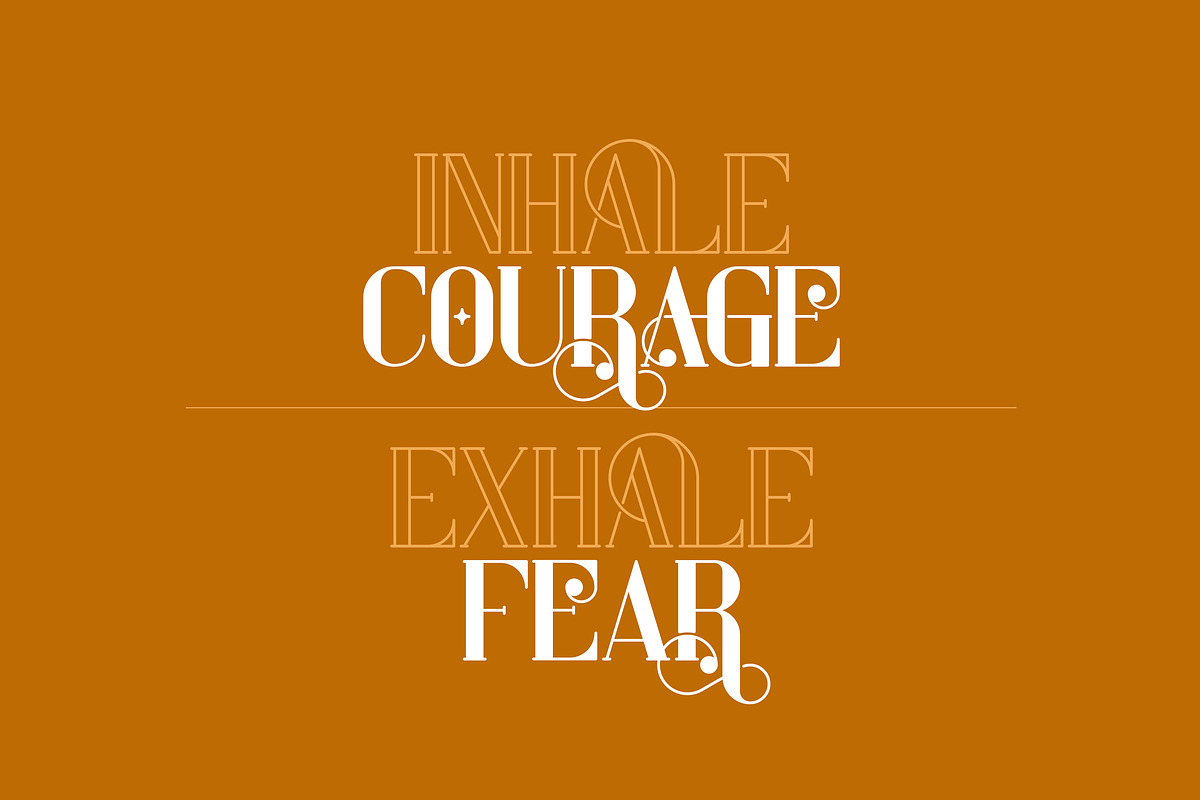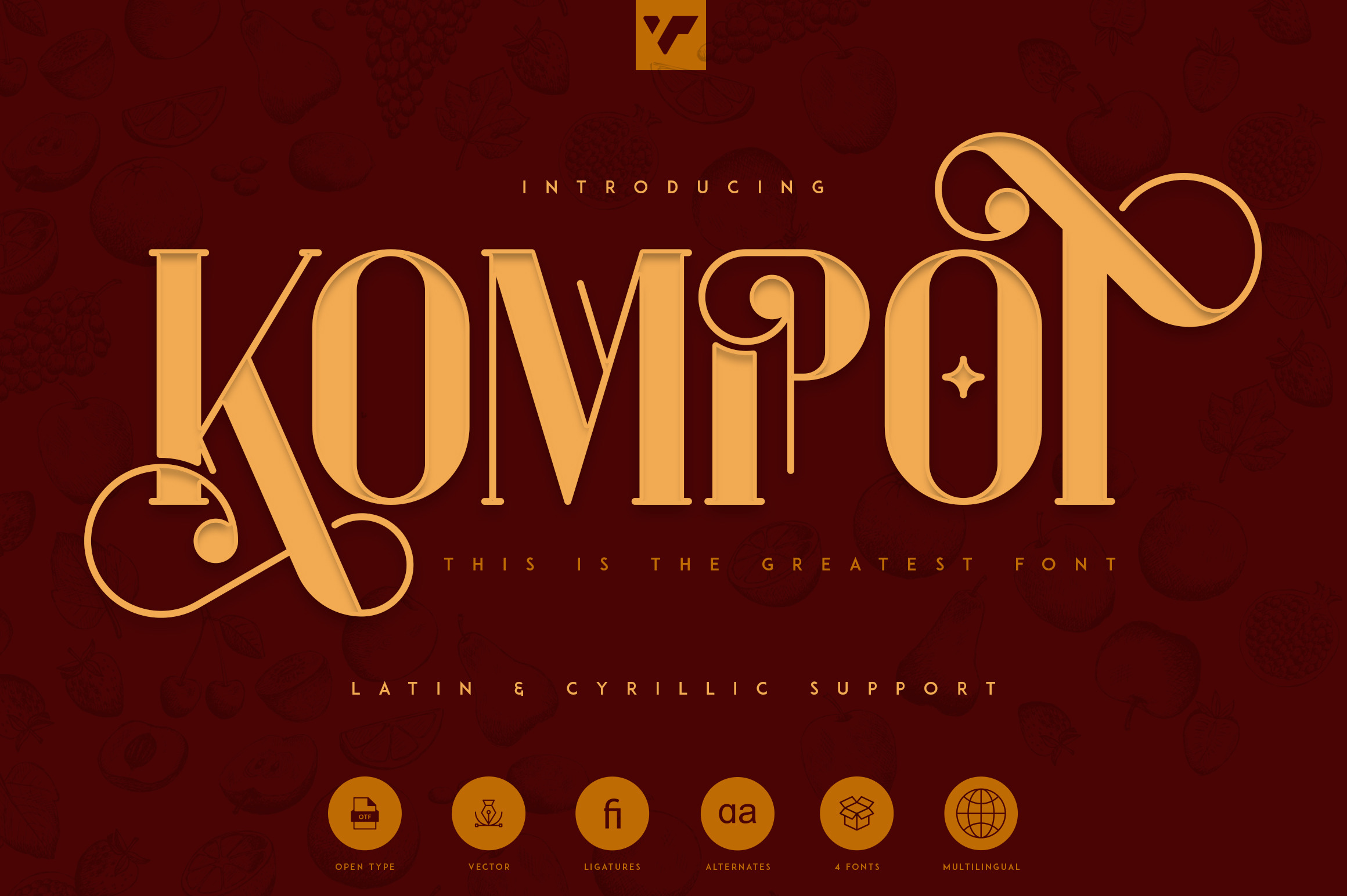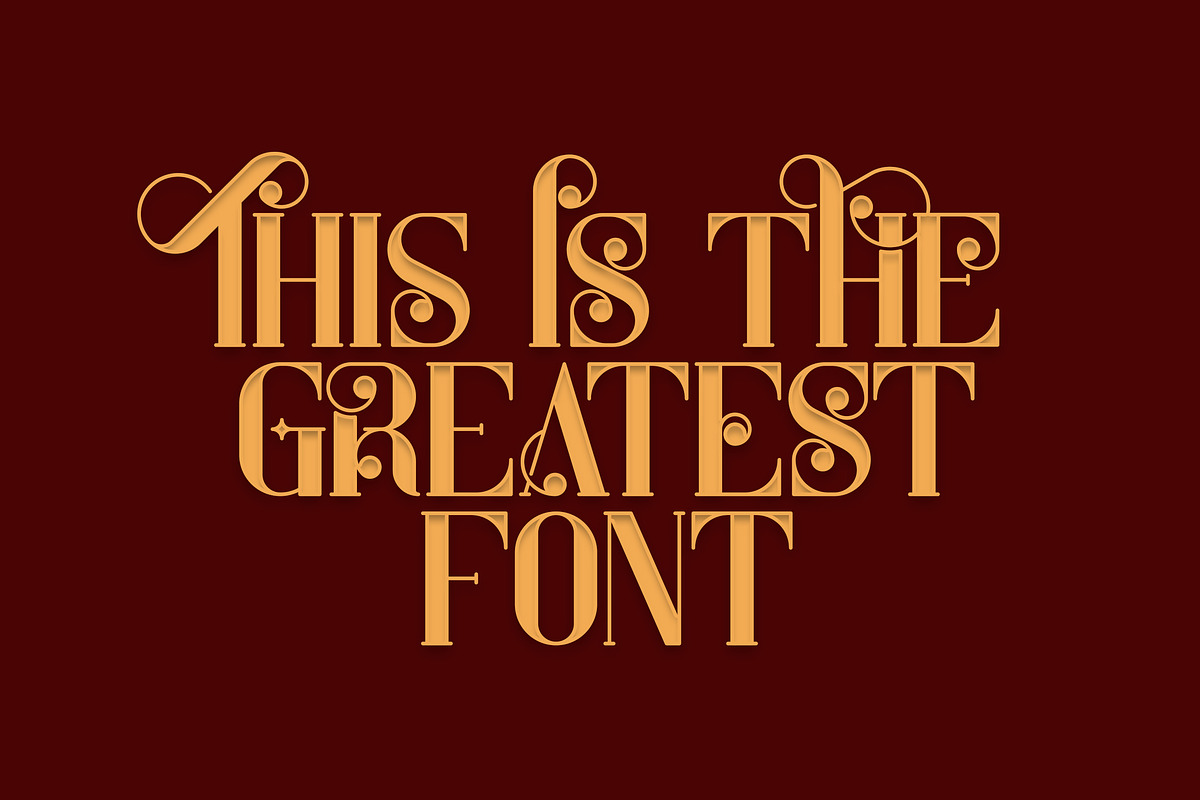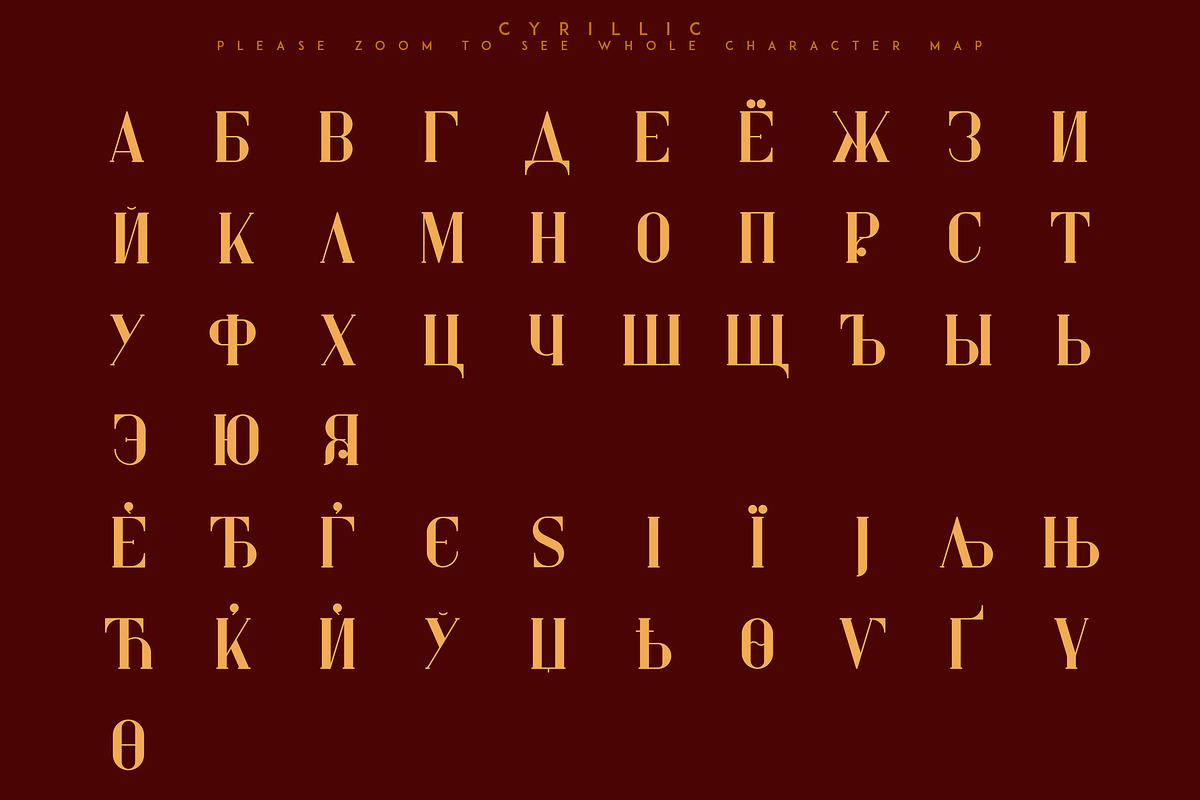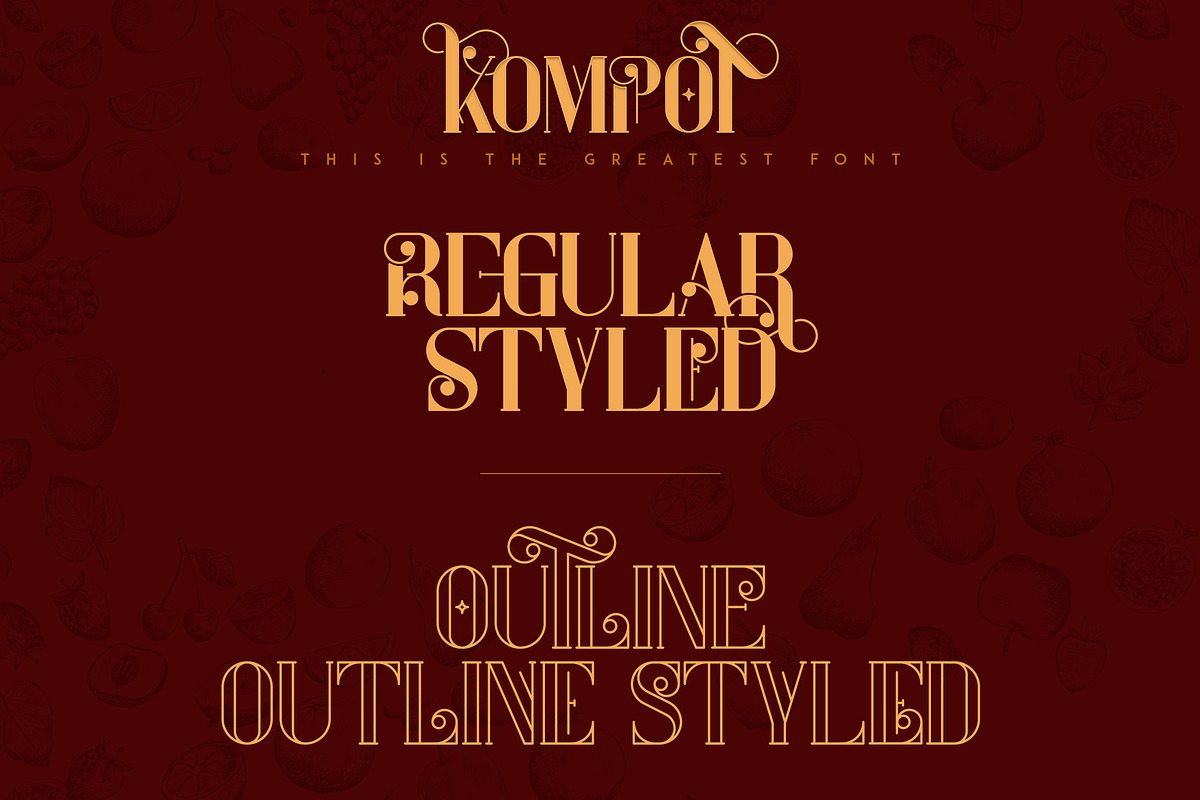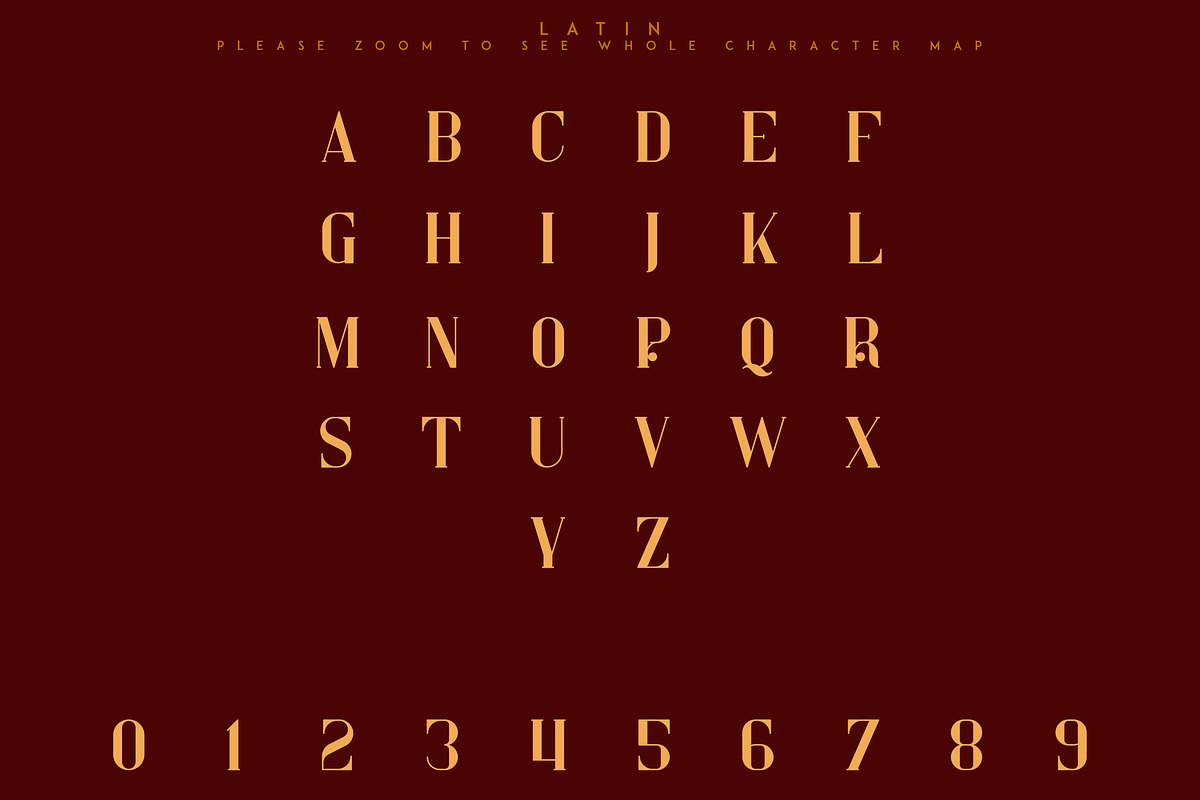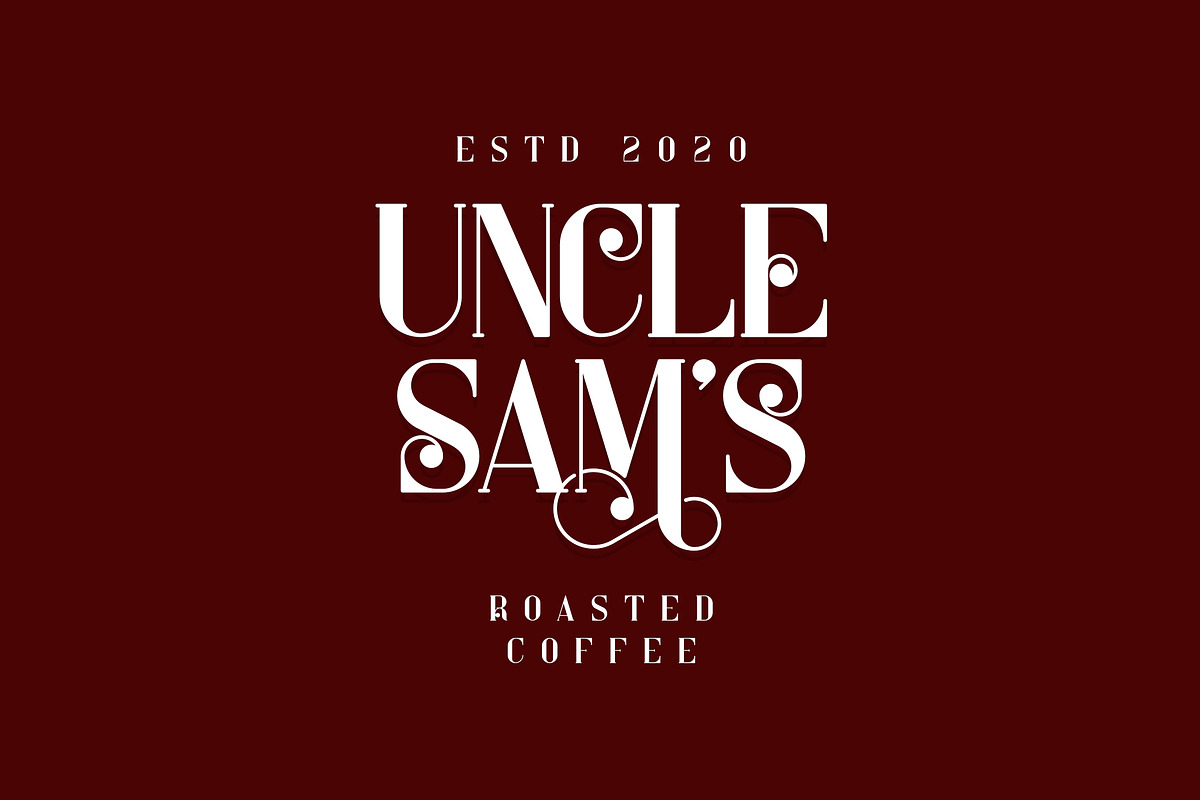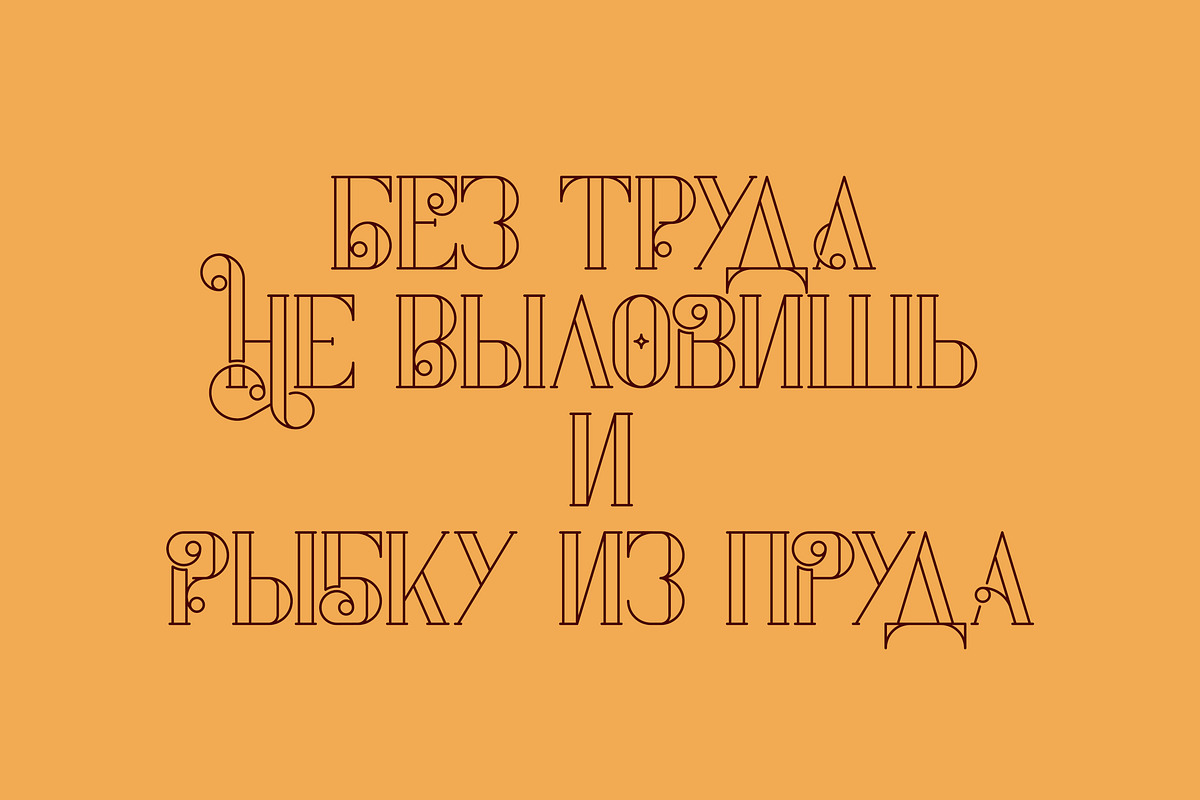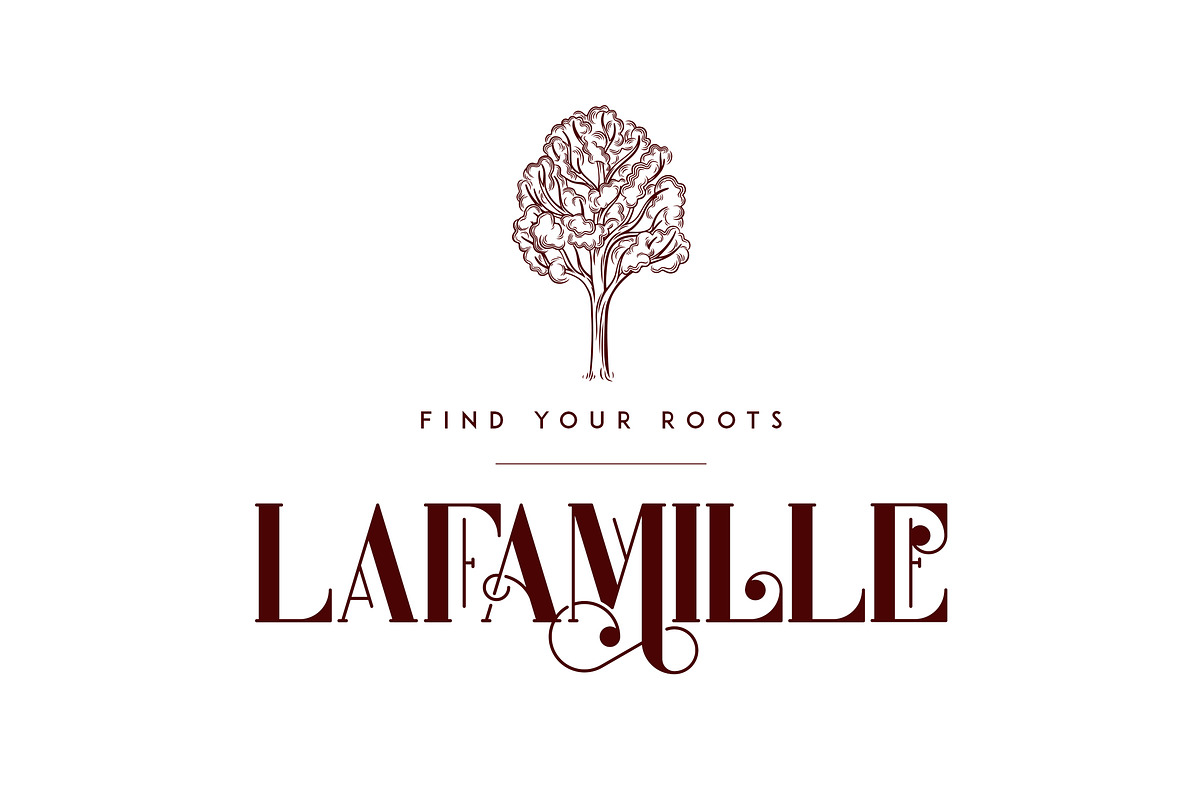
Kompot - This is the Greatest Font
Introducing Kompot - This is the Greatest Font ... actually typeface with 4 styles
Kompot is swirly, vintage typeface with 4 styles to enchant your next project. They are loaded alternate glyphs, ligatures and multilingual support. Very versatile fonts that works great in large and small sizes. Basic latin, advanced latin, basic Cyrillic and advanced Cyrillic character sets are supported!
Kompot is perfect for branding projects, home-ware designs, product packaging, magazine headers - or simply as a stylish text overlay to any background image.
- Uppercase numeral, punctuation & Symbol
- Styled
- Outline
- Styled Outline
- Alternate glyphs
- Basic and Advanced Cyrillic support